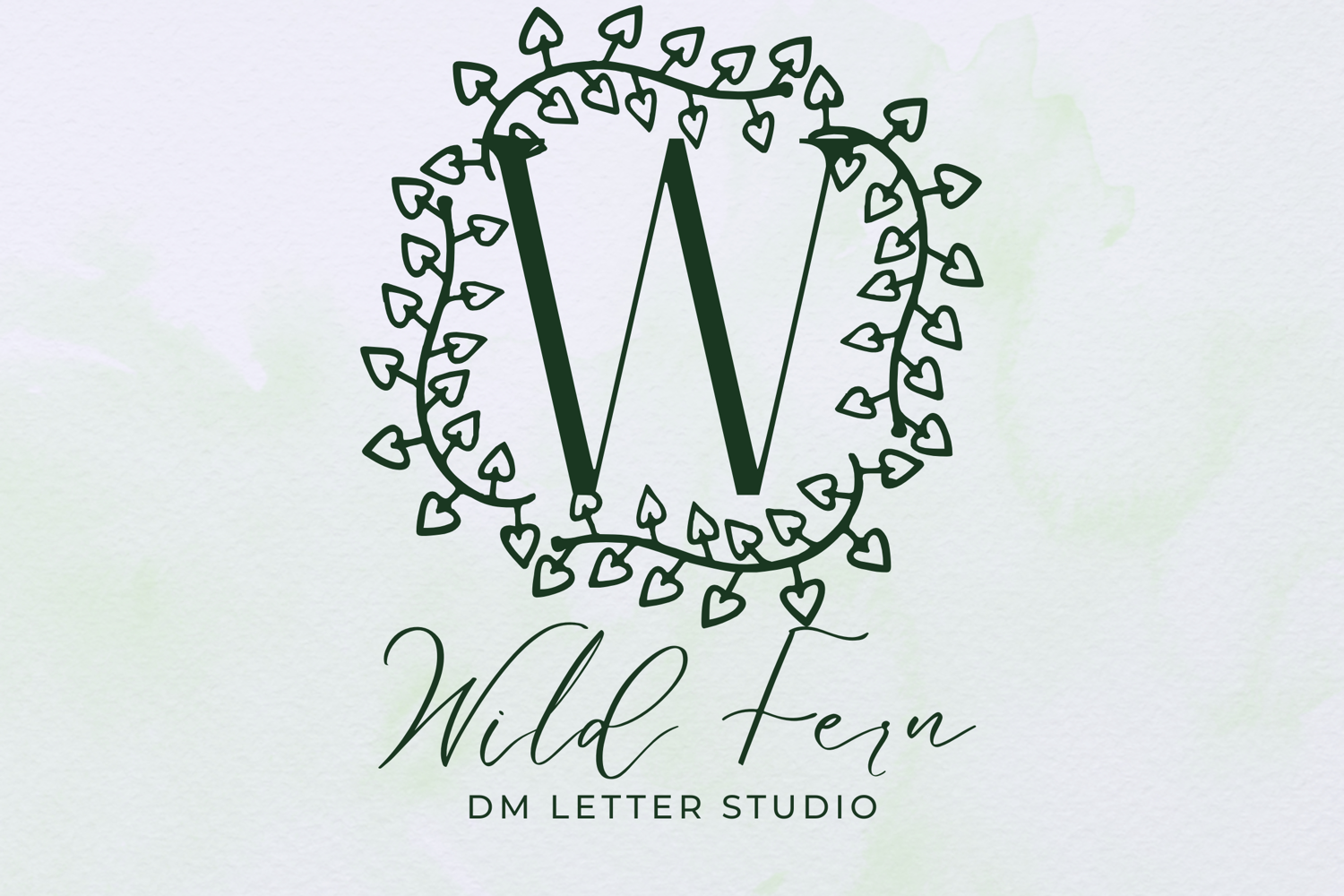
Wild Fern Monogram - Botanical Serif Monogram Font
Wild Fern Monogram
Wild Fern Monogram – Botanical Serif Monogram Font with Fern Accents
Wild Fern Monogram is a nature-inspired serif font that brings elegance and wilderness together in harmony. Each uppercase letter is adorned with soft, detailed fern illustrations, creating a graceful and organic look perfect for rustic, bohemian, and botanical-themed projects. Whether you're crafting wedding designs or custom branding, Wild Fern Monogram adds a refined earthy touch.
• Fern-Adorned Letterforms: Each monogram is paired with delicate fern elements for a natural, handcrafted look.
• Elegant Serif Style: Classic serif structure delivers readability with a touch of timeless sophistication.
• Nature-Driven Aesthetic: Brings woodland and garden themes to life in stylish detail.